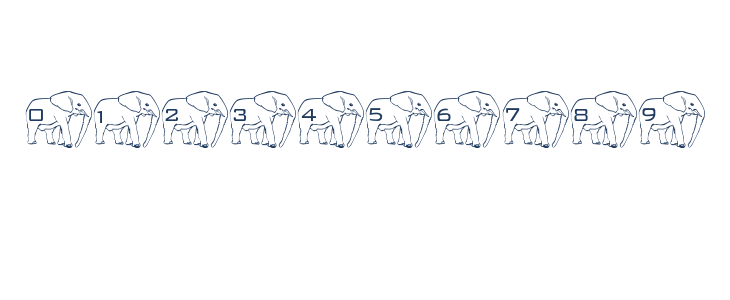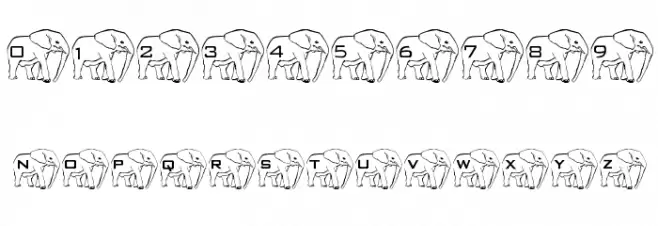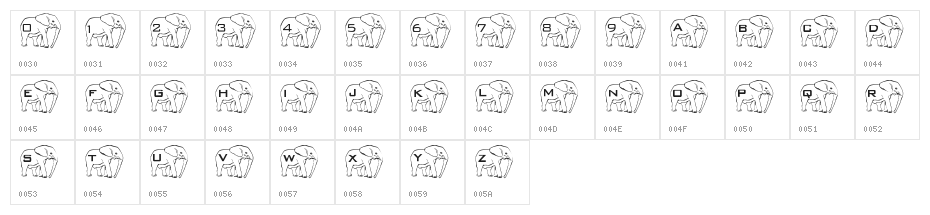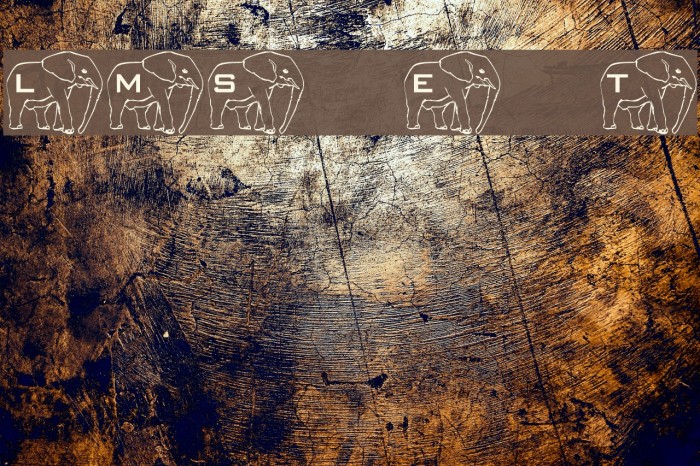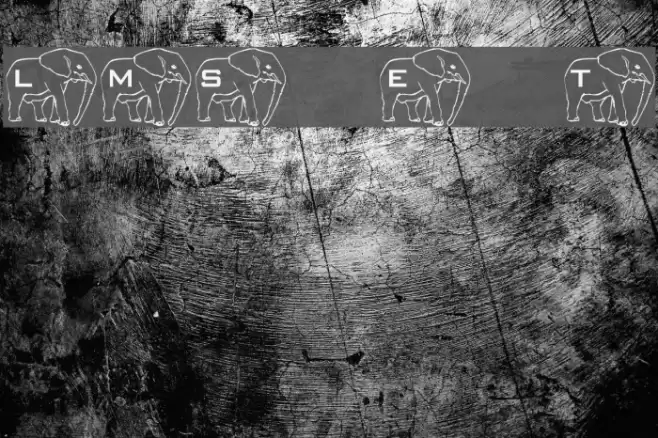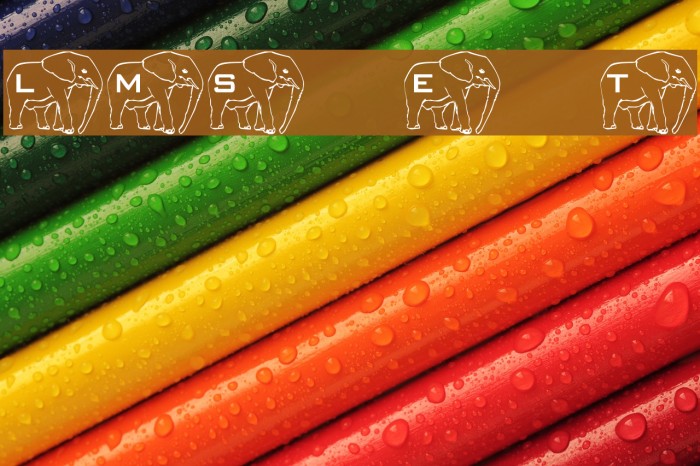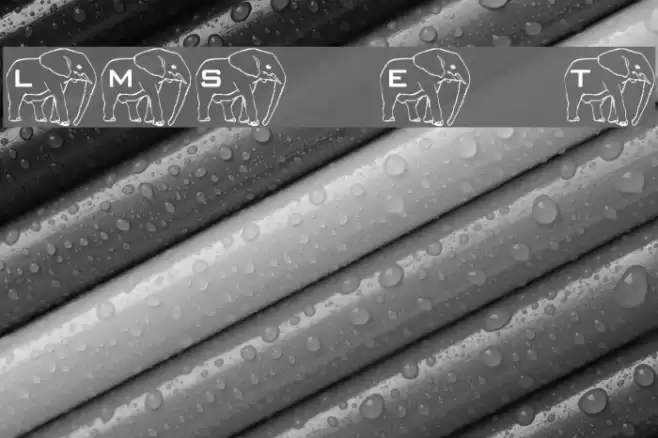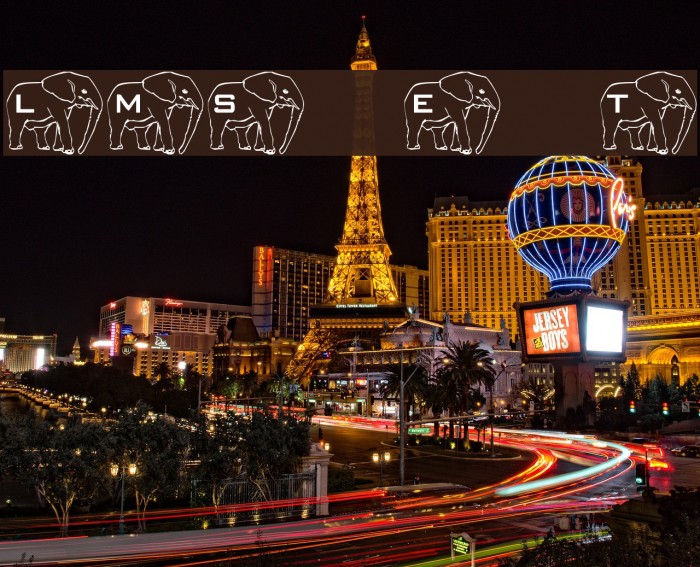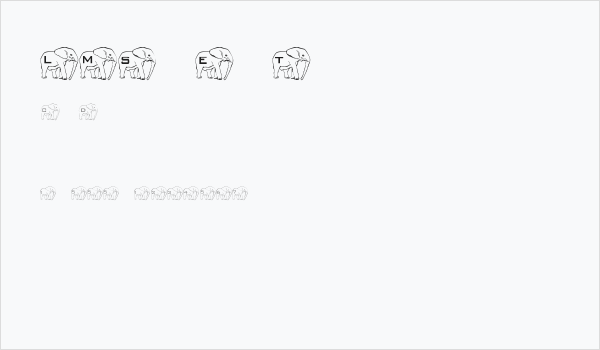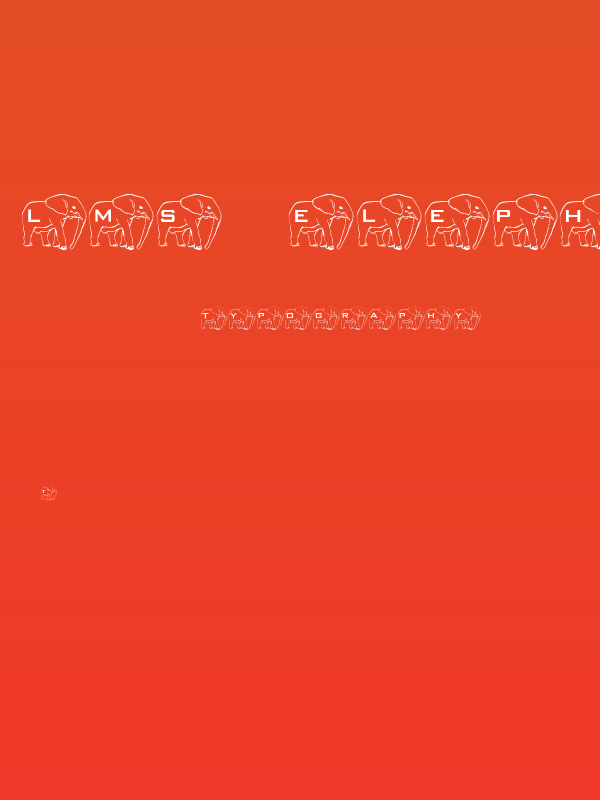
LMS Elephant Tattoo Font
LMS Elephant Tattoo Description
This decorative font features a unique design where each character is integrated with an elephant motif. The letters and numbers are stylized to fit within the shape of an elephant, creating a playful and artistic appearance. The font maintains a consistent theme across all characters, with each letter and number being clearly distinguishable while still adhering to the overall elephant design. This font is ideal for projects that require a whimsical or themed approach, particularly those related to wildlife, nature, or children's content. The intricate design of the characters suggests a careful balance between readability and artistic expression.
Use CaseLogos, Posters, Themed Events
Proposed ProjectsIdeal for children's books, wildlife-themed posters, or playful branding projects.